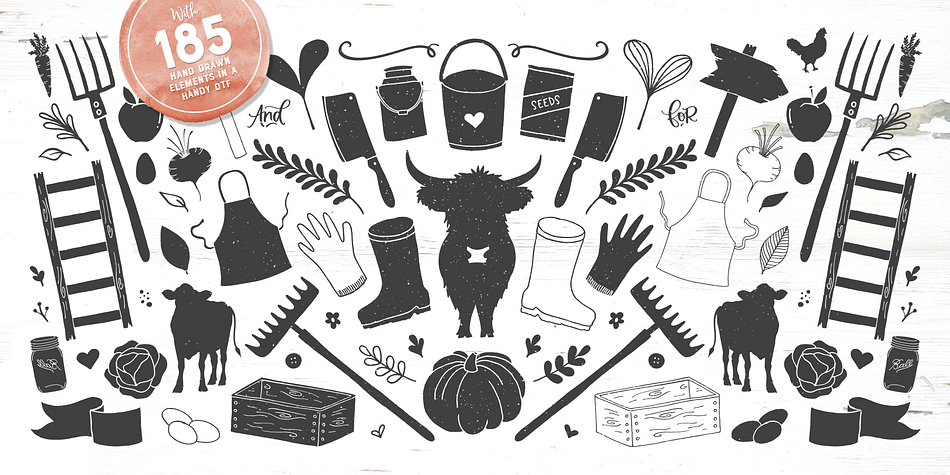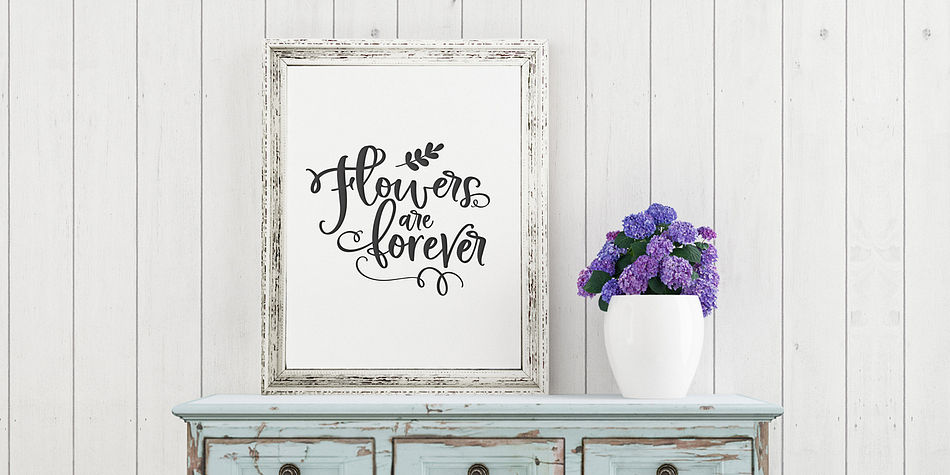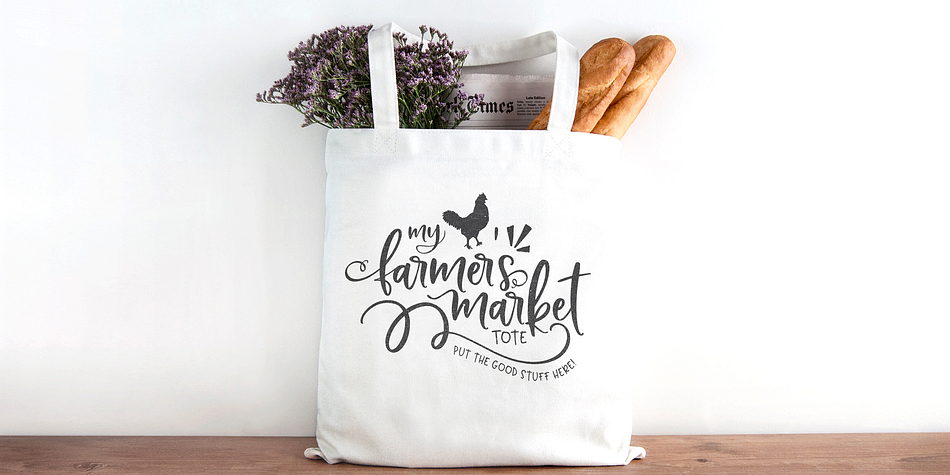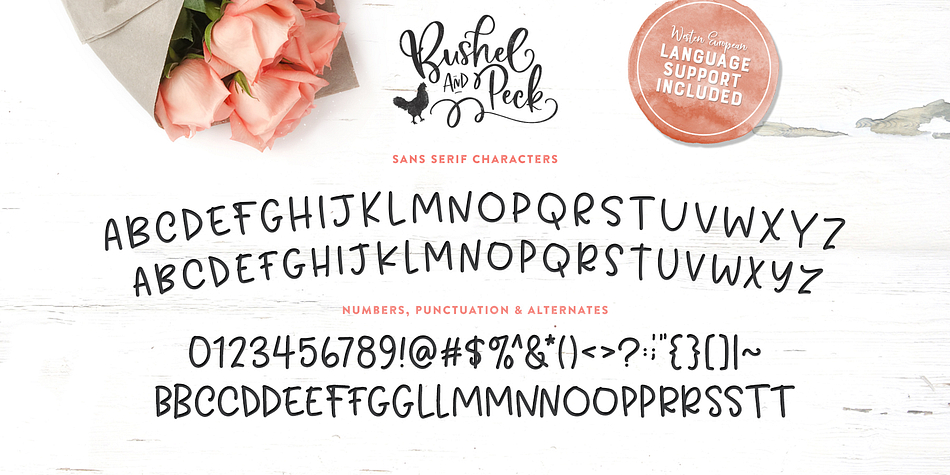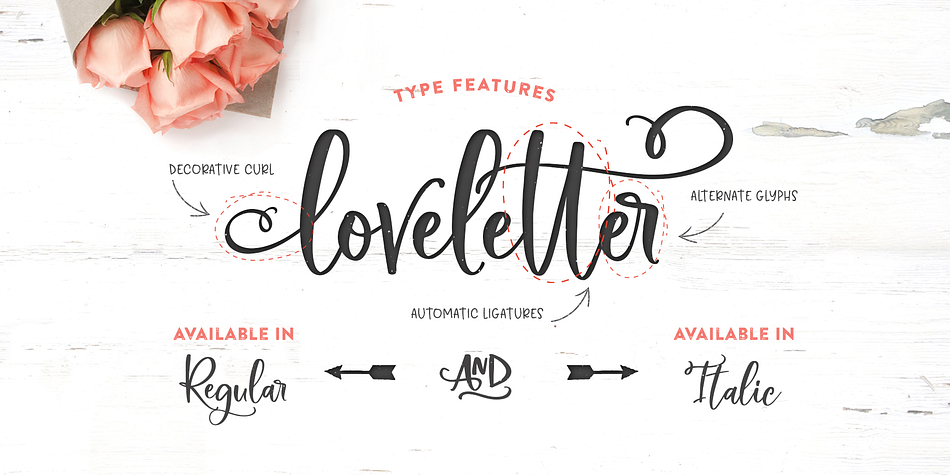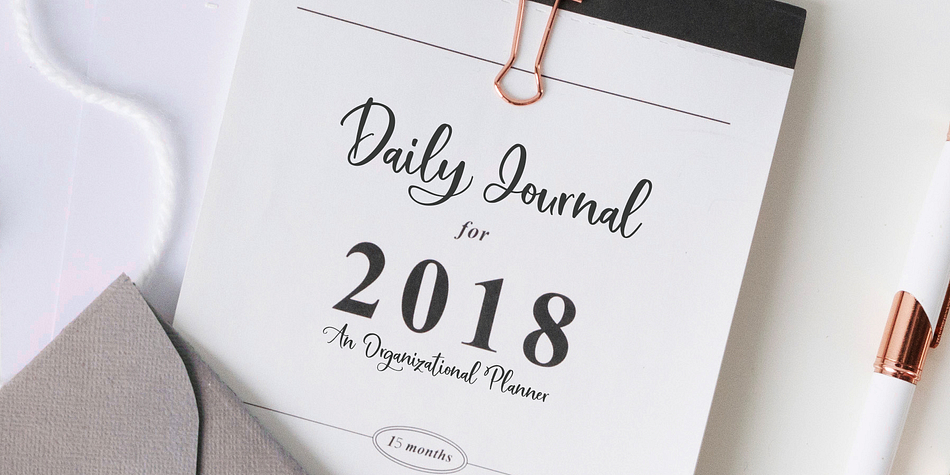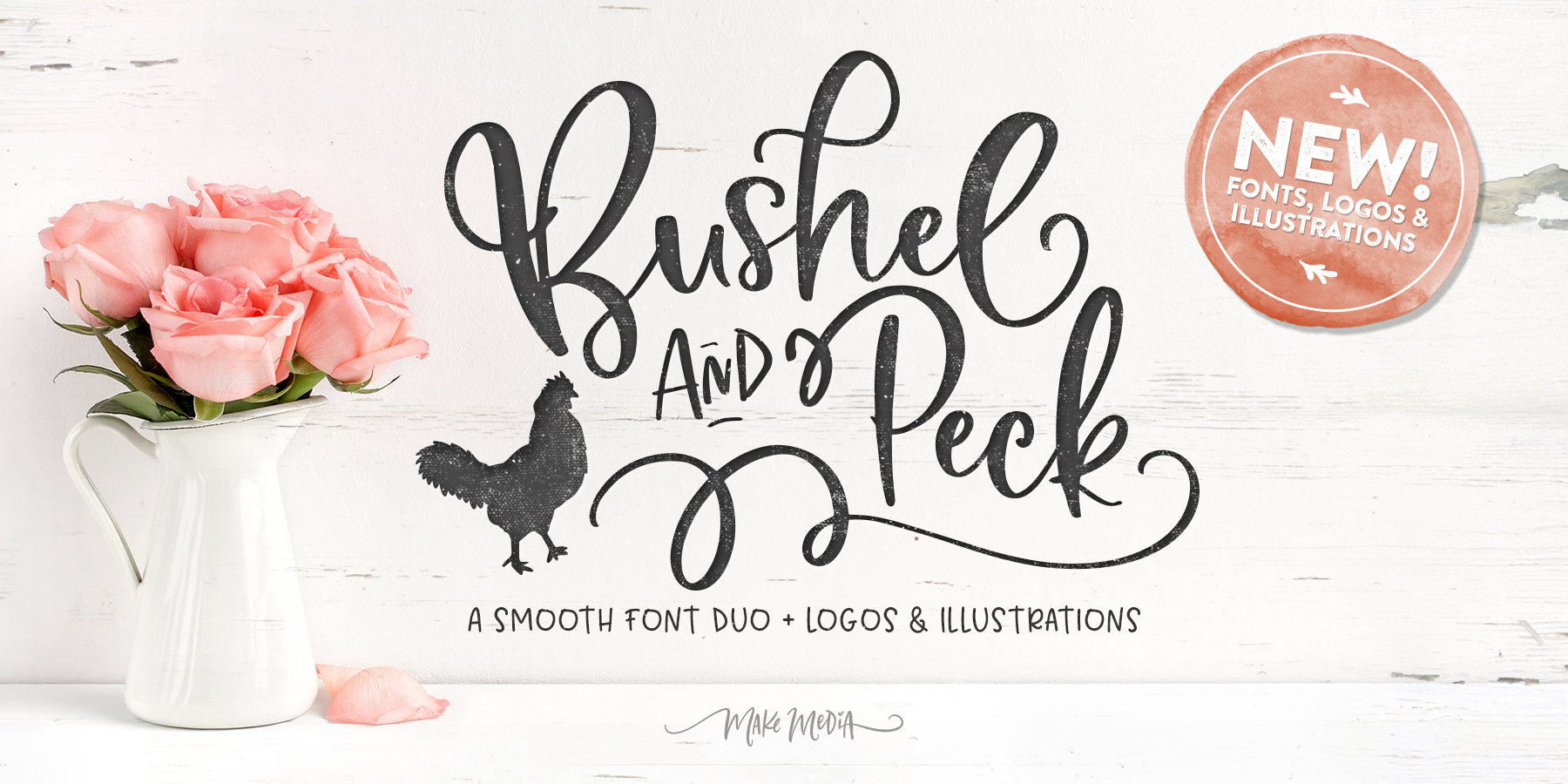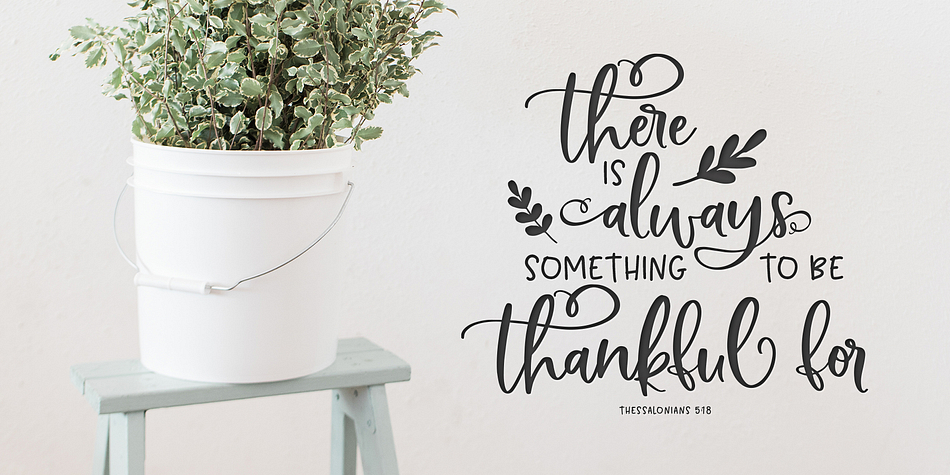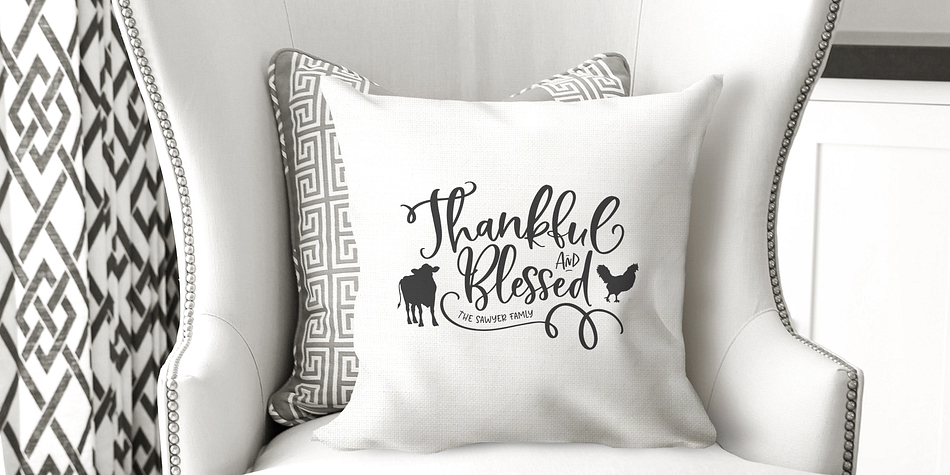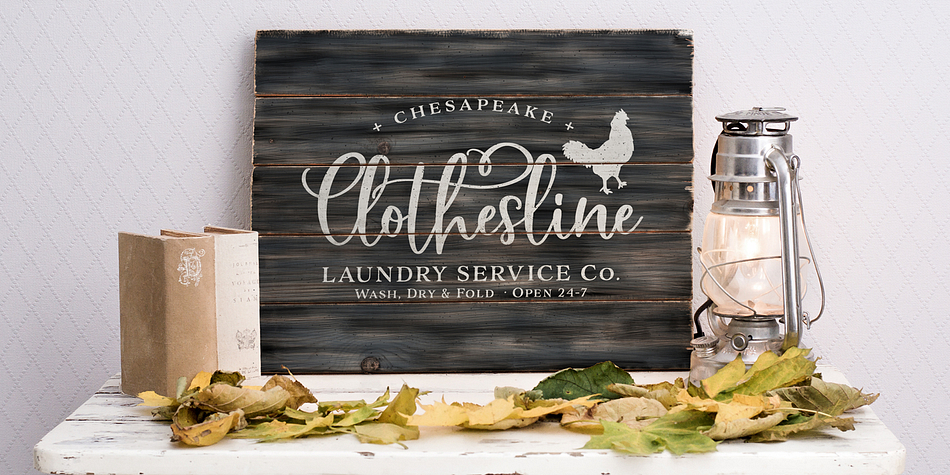
Designed by Callie Hegstrom, Bushel & Peck is a dingbat, hand drawn and modern calligraphy font family. This typeface has four styles and was published by MakeMediaCo.
Introducing Bushel and Peck - A flirty, bouncy, farmhouse script with over 50 alternate characters, a bonus sans serif, and 170 hand drawn elements.
Use this font family to create gorgeous branding, signage, and packaging, with a little farmgirl flare.
Styles | Hand Drawn, Modern Calligraphy, Dingbat |
Designer | Callie Hegstrom |